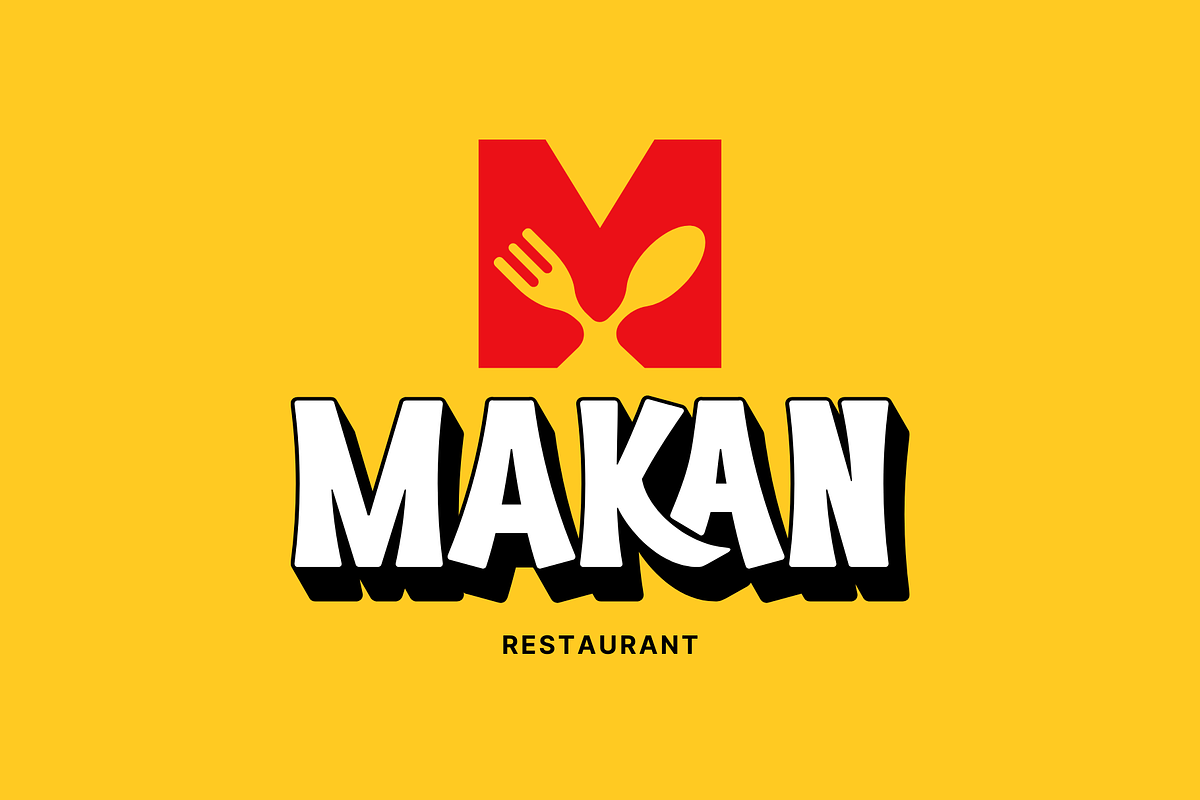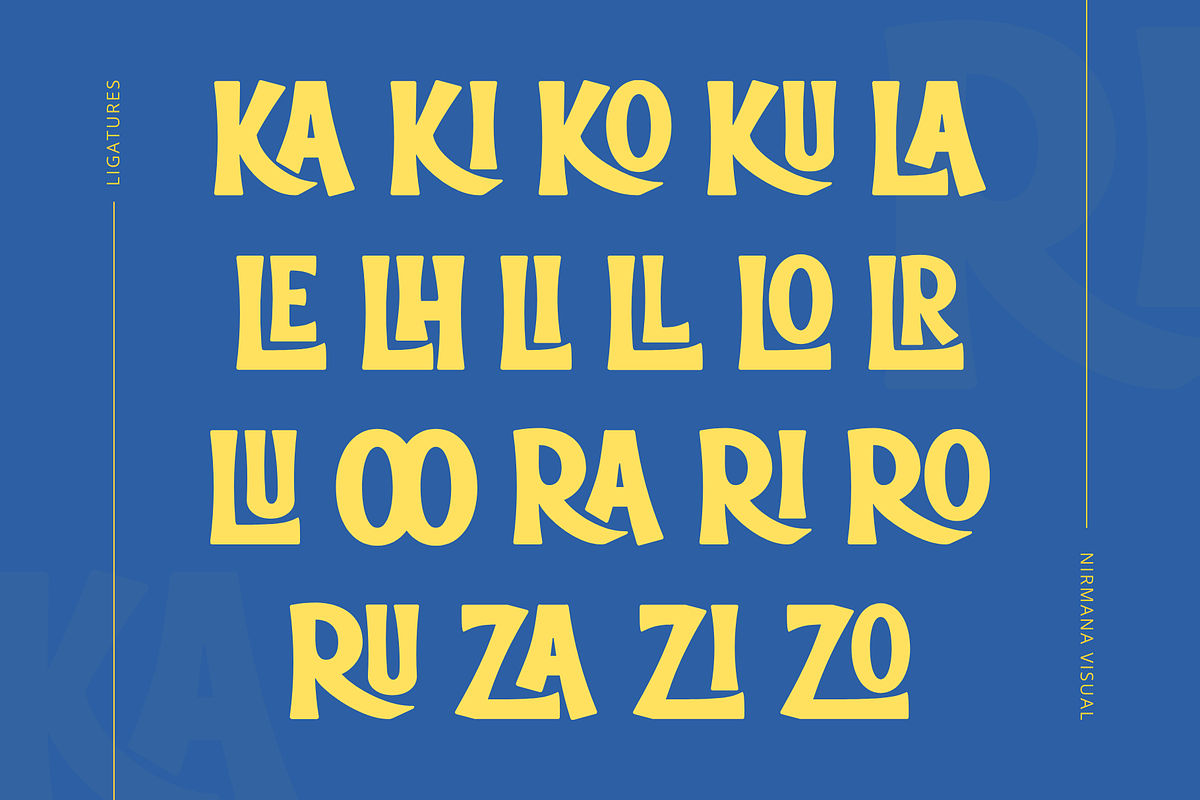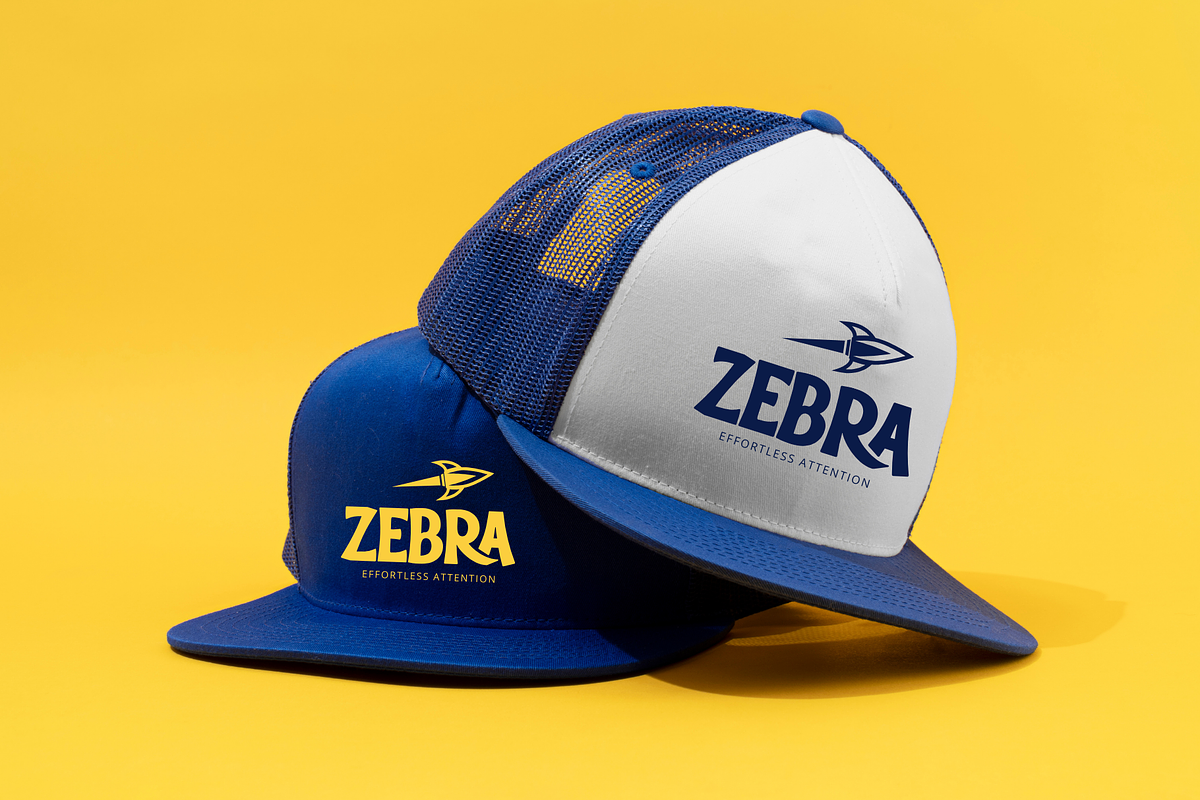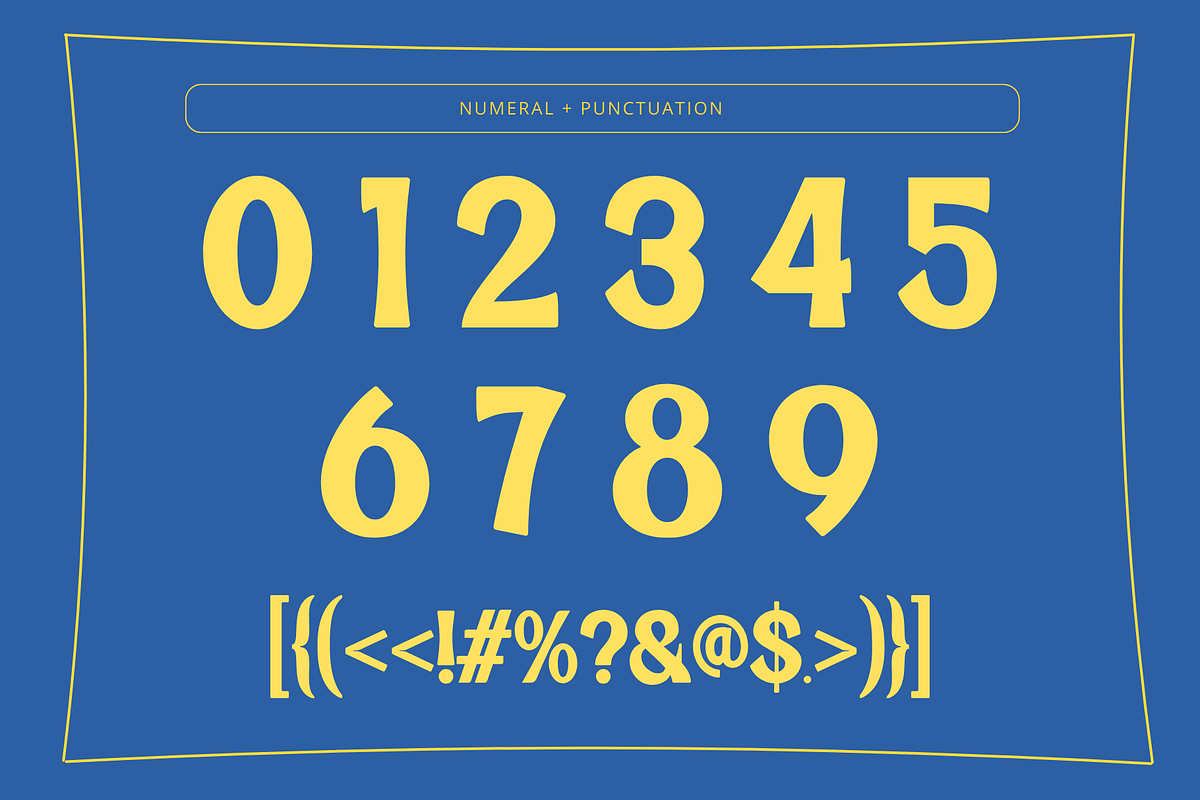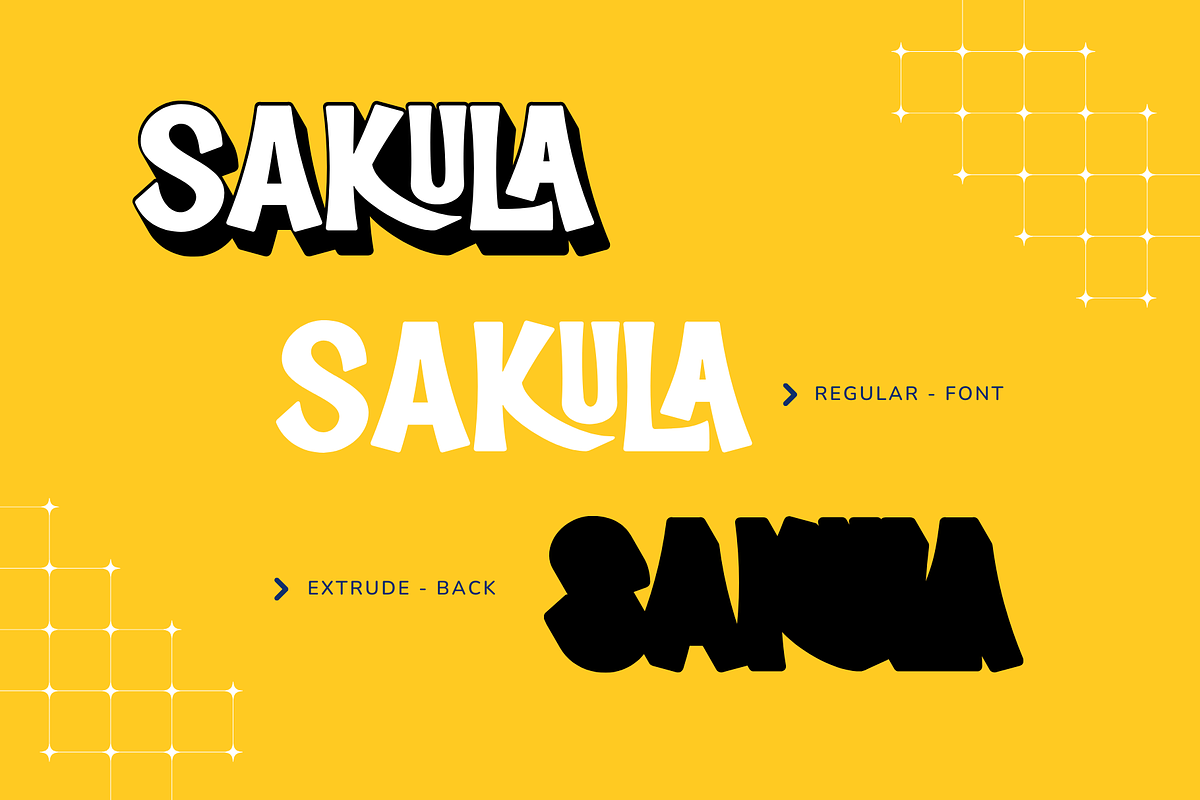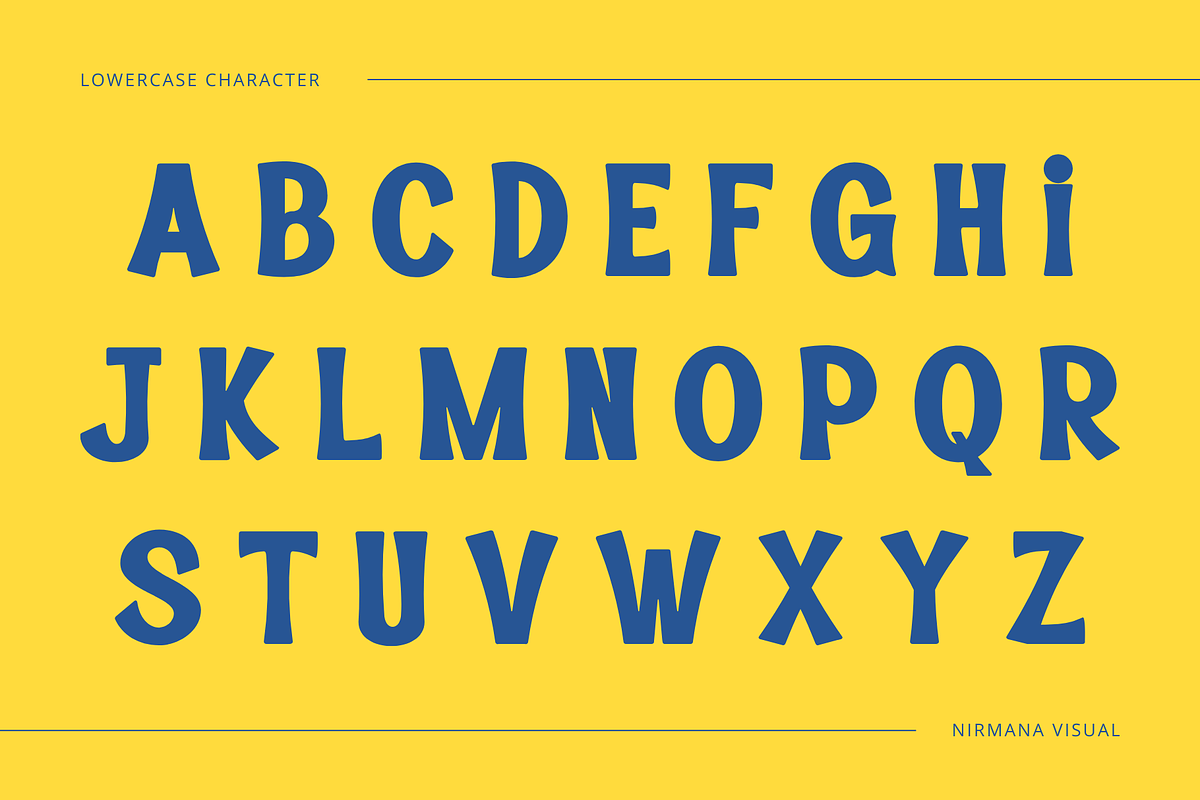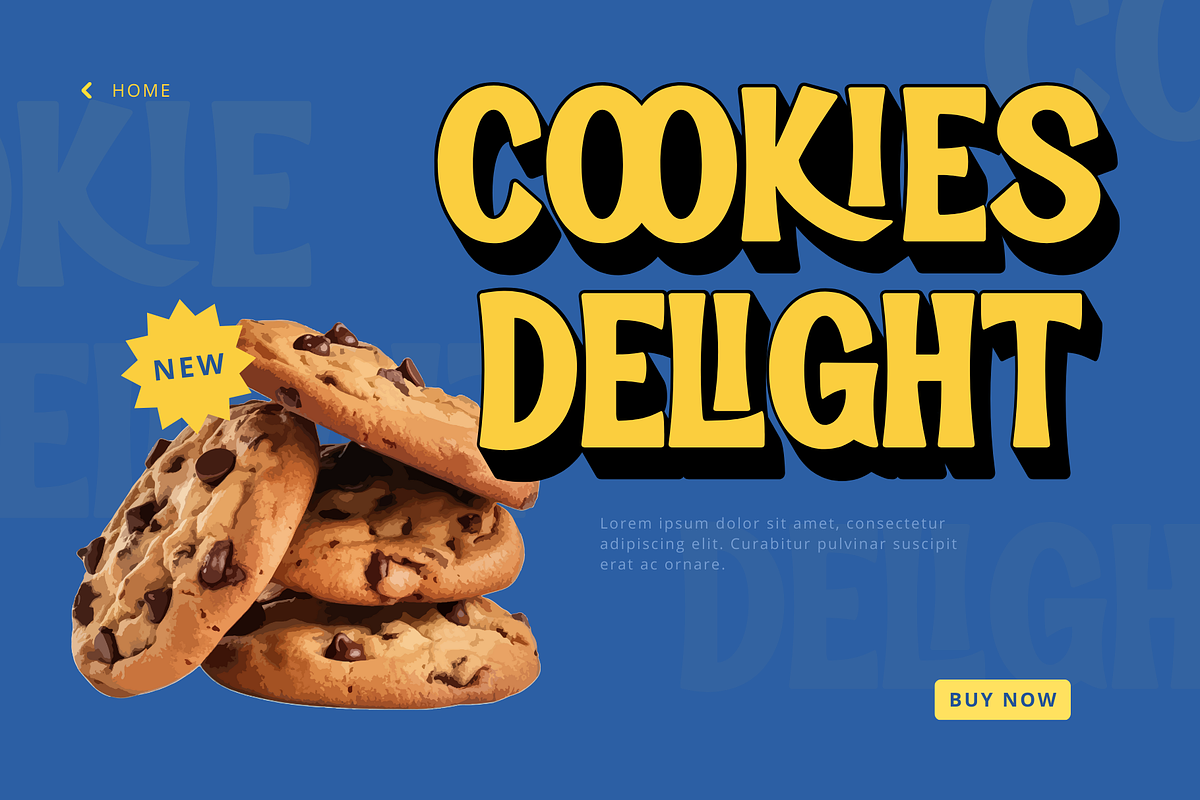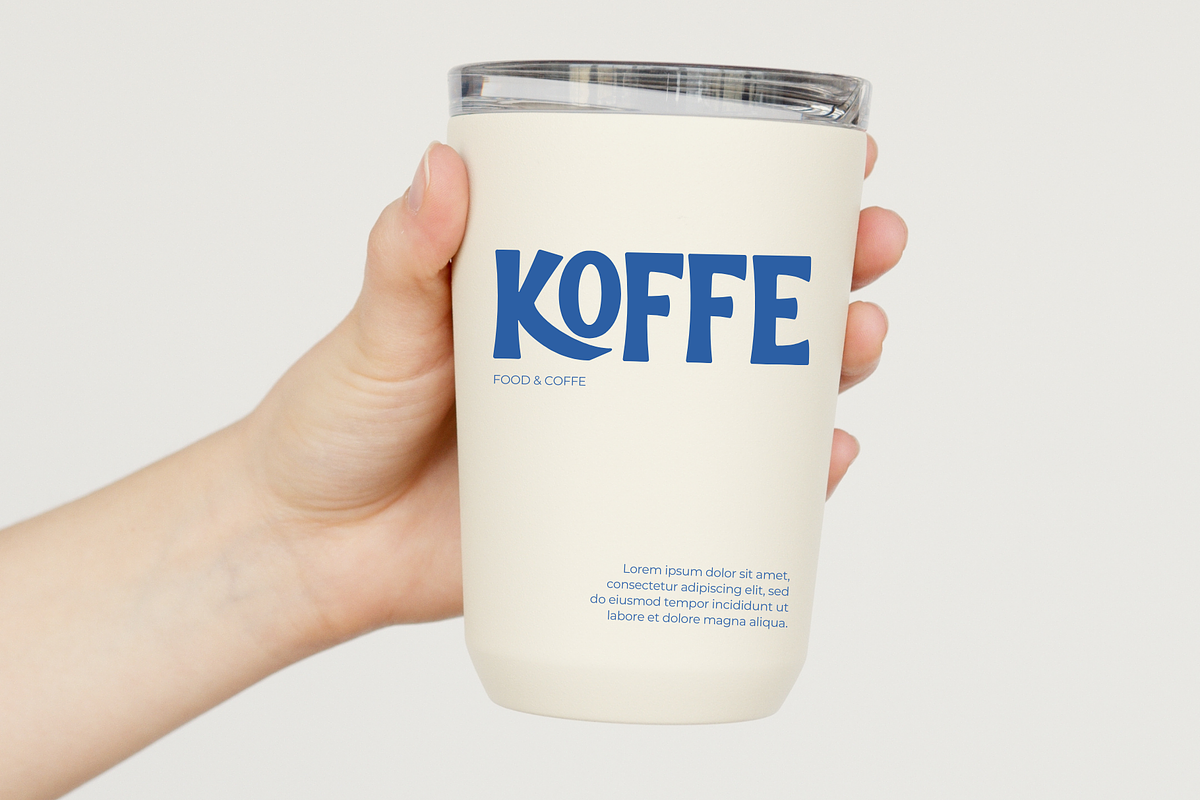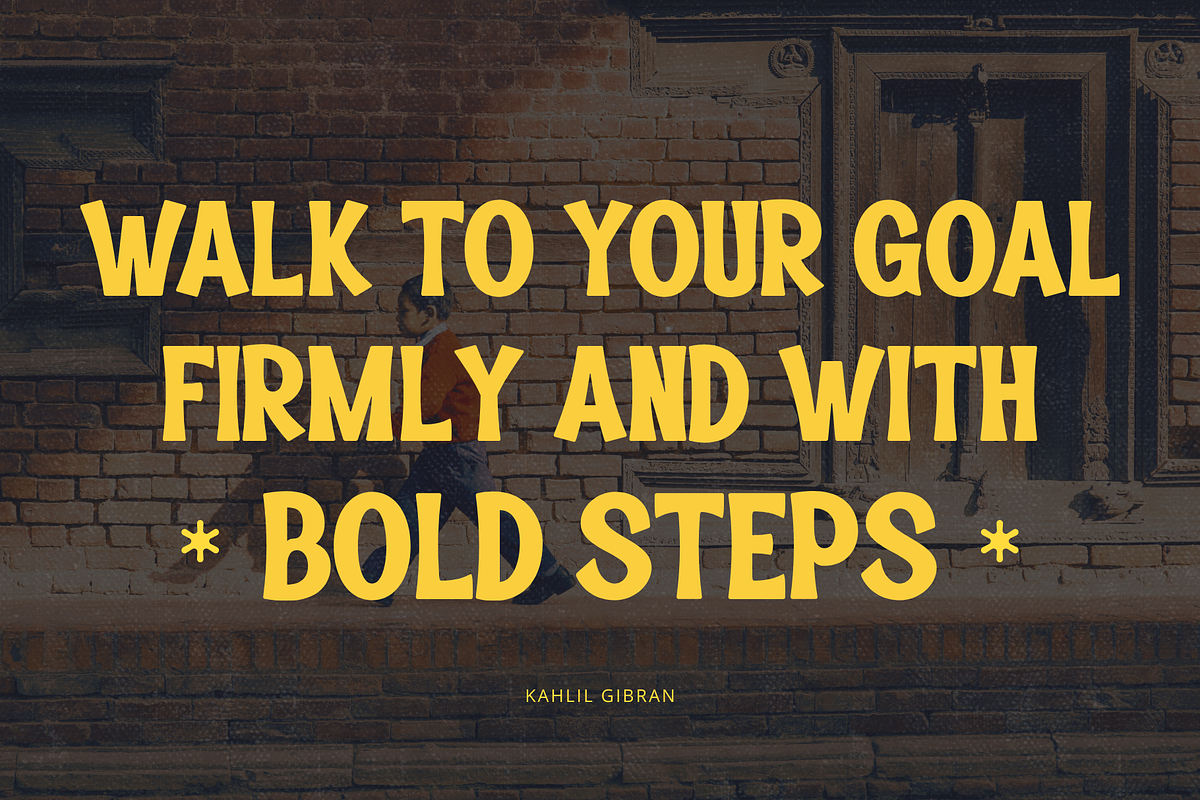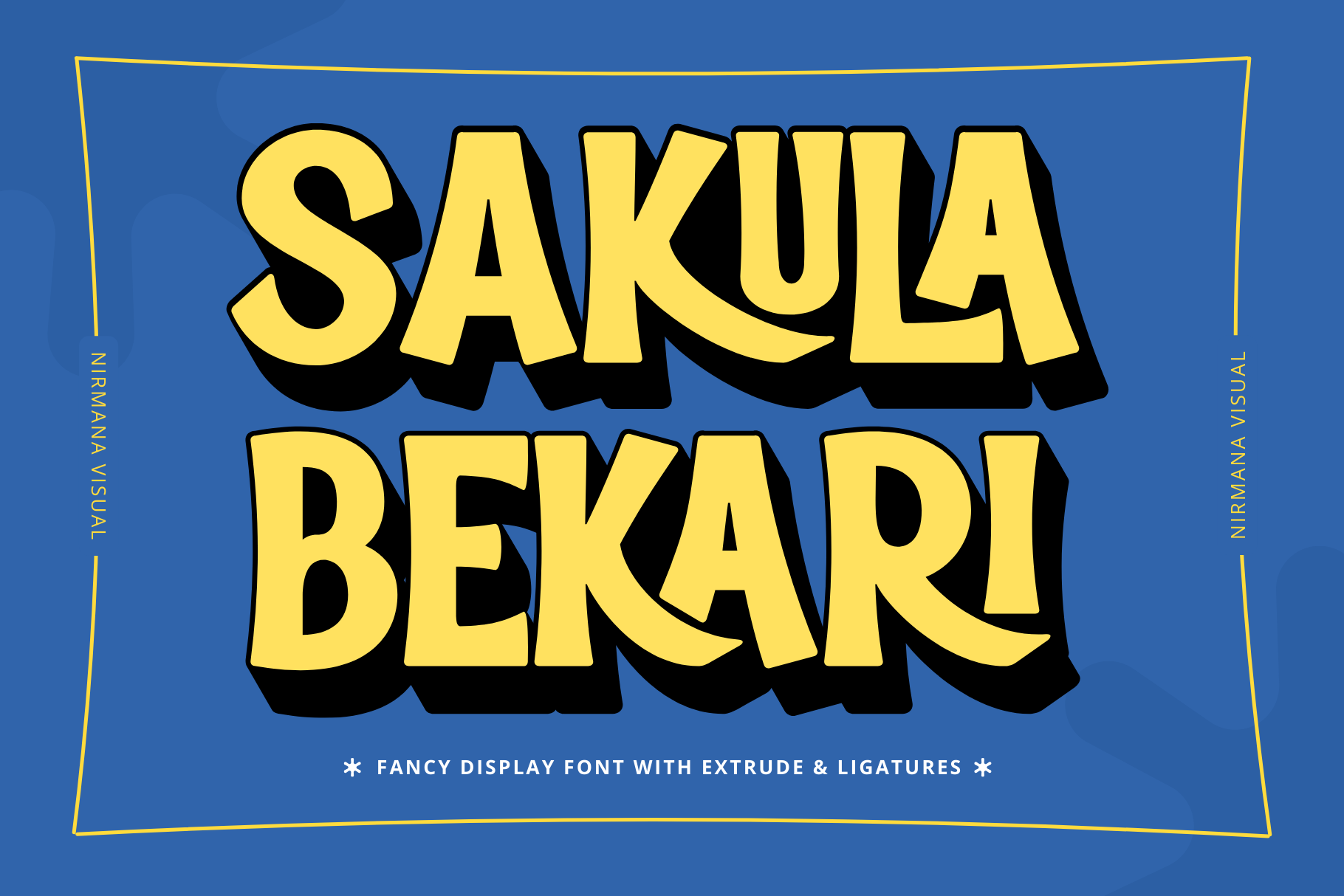
Sakula Bekari Retro - Logo Font
Sakula Bekari Retro - Branding Logo Font
Sakula Bekari Retro offers beautiful typographic harmony for a diversity of design projects, including logos & branding, social media posts, advertisements & product designs.